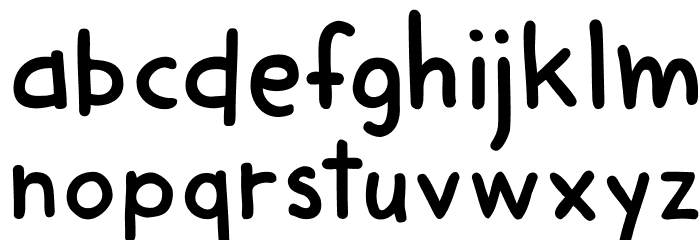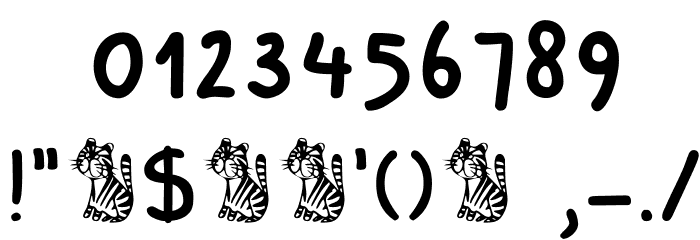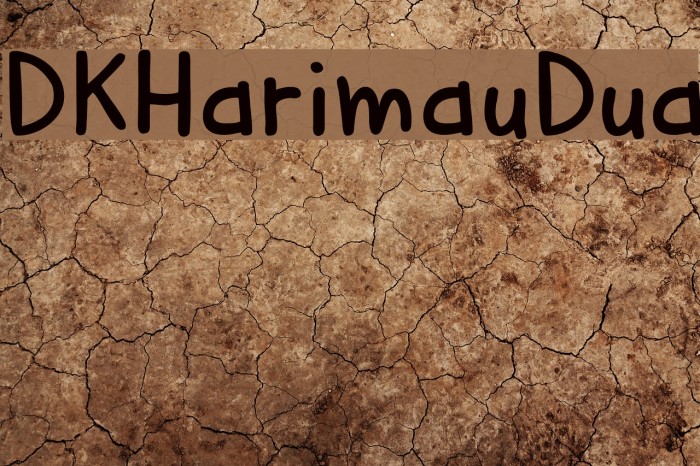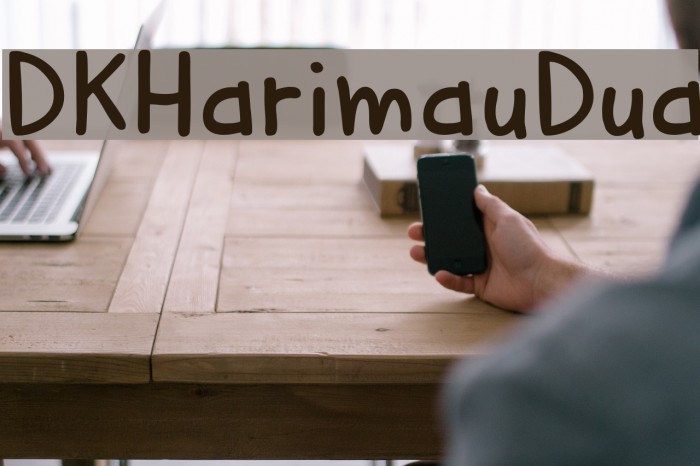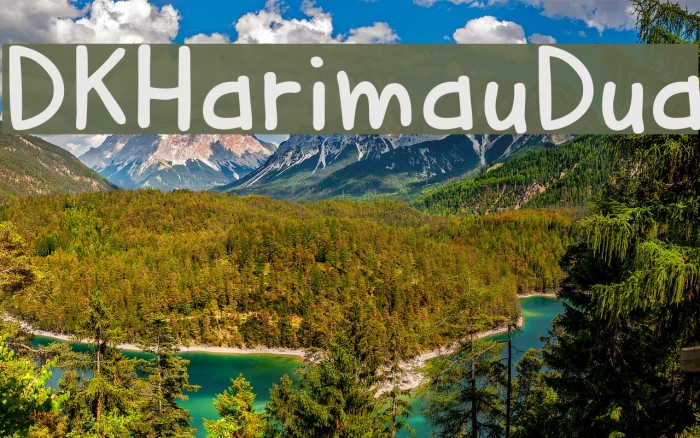
DKHarimauDua Font
This playful and whimsical font features rounded, hand-drawn characters that convey a sense of fun and creativity. The uppercase and lowercase letters are consistent in style, with a slightly irregular and organic feel that adds charm and personality. The numerals are bold and easy to read, maintaining the same playful aesthetic. Special characters include a unique cat illustration, adding a distinctive touch to the font. The overall design is approachable and friendly, making it suitable for projects that aim to be inviting and engaging.
A playful, hand-drawn font with rounded characters and whimsical charm.
- Proposed Projects: Ideal for children's books, playful branding, greeting cards, and creative projects that require a friendly and approachable typeface.
- Category: Handwritten
- Use Case: Headlines, Logos, Creative projects